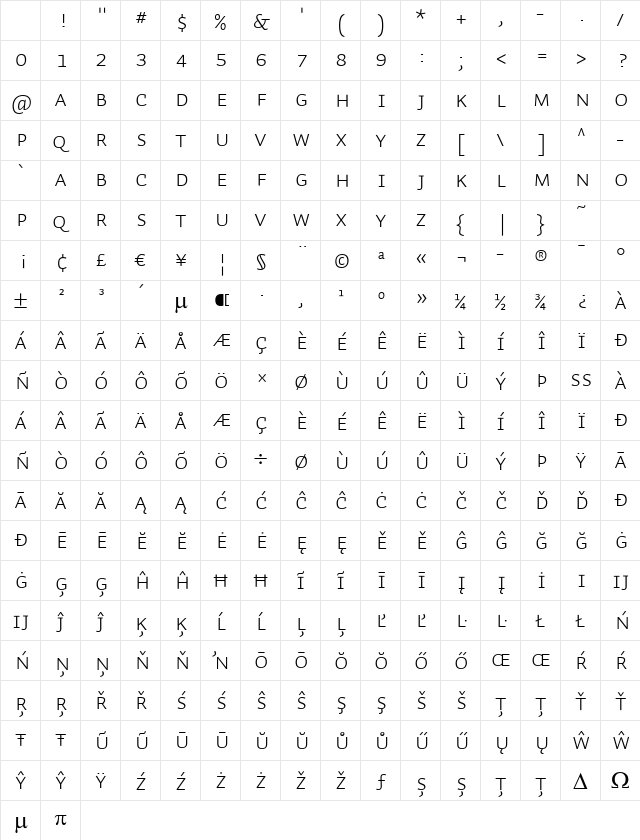
Complete Auto 2 Light SmCp glyph index. Displaying only characters natively supported by Auto 2 Light SmCp font.
Auto 2 is a composed and adaptable typeface that performs quietly and consistently across a wide range of design contexts. Its slender proportions lend an understated elegance to any composition.